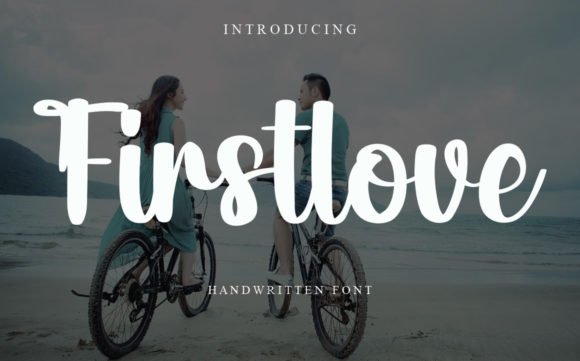
Unleashing the Delicate Charm of Firstlove Font
Have you ever stumbled upon a font that makes you feel like you’re stepping into a whimsical world of wonder? For designers, this magical moment can be a game-changer. It happened to us when we discovered the enchanting Firstlove Font – a dainty handwritten font that adds a touch of elegance to any project.
Firstlove Font is more than just a font; it’s a tool that helps designers create captivating visual stories. Its delicate flow makes it perfect for wall displays, wedding invitations, social media post logos, and any project that requires impressive typography. Whether you’re a seasoned pro or a budding designer, Firstlove Font is an invaluable asset that can elevate your designs and leave a lasting impression on your audience.
Key Features of Firstlove Font
- Unique Characteristics: Firstlove Font features a unique, elegant script design with a touch of sophistication, making it perfect for wedding invitations, romantic cards, and other special occasions.
Firstlove Font Review
As a designer, I’ve had the chance to work with a wide range of fonts, and I must say that Firstlove Font has its own unique charm. ✨ One of the things that stands out is its elegant and refined aesthetic, making it perfect for high-end projects or luxury branding.
The font’s versatility is also noteworthy, as it can be used in a variety of contexts, from body text to headlines. Its clean and modern design makes it an excellent choice for digital applications, and its legibility ensures that your message will be conveyed effectively.
- ✨ Elegant and refined aesthetic
- ✨ Versatile and suitable for various contexts
- ✨ Clean and modern design
- ✨ Excellent legibility
- ⚠️ Limited character set, which may not be suitable for multilingual projects
- ⚠️ May not be as effective for display purposes, such as posters or billboards
Overall, I think Firstlove Font is a solid choice for designers looking for a high-end, elegant font. While it may have some limitations, its strengths far outweigh its weaknesses, making it a great addition to any design toolkit.
Firstlove Font: A Practical Application Guide
For the most effective use of Firstlove Font:
- Use it for titles and headings to create a bold, eye-catching effect.
- Pair it with other fonts to create a unique and interesting font combination.
- Experiment with different font sizes and colors to achieve the desired look.
Alternatives to Firstlove Font for Designers
Great Vibes is a beautiful, elegant script font perfect for adding a touch of sophistication to your designs. It’s ideal for use in titles, headings, and other areas where you want to create a sense of luxury and refinement.
Compared to Firstlove Font, Great Vibes has a more refined and polished look, making it suitable for high-end designs. However, it lacks the playful, handwritten feel of Firstlove Font, so it’s not the best choice for casual or informal designs.
2. Dancing Script
Dancing Script is a lively, energetic script font that’s perfect for adding a sense of movement and playfulness to your designs. It’s ideal for use in titles, headings, and other areas where you want to create a sense of excitement and energy.
Compared to Firstlove Font, Dancing Script has a more dynamic and expressive feel, making it suitable for designs that require a lot of personality and flair. However, it can be overwhelming if used too much, so use it sparingly to add emphasis and interest.